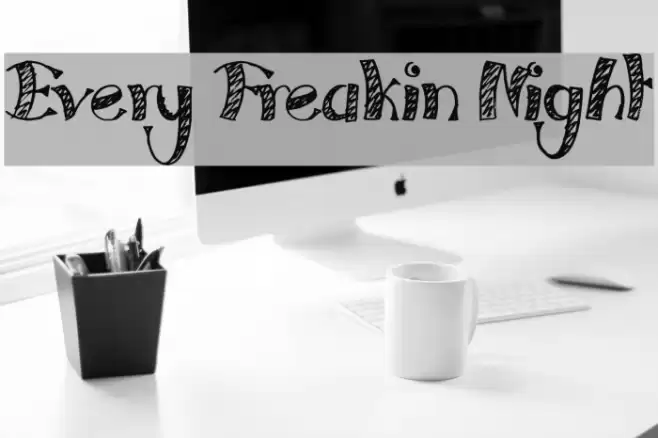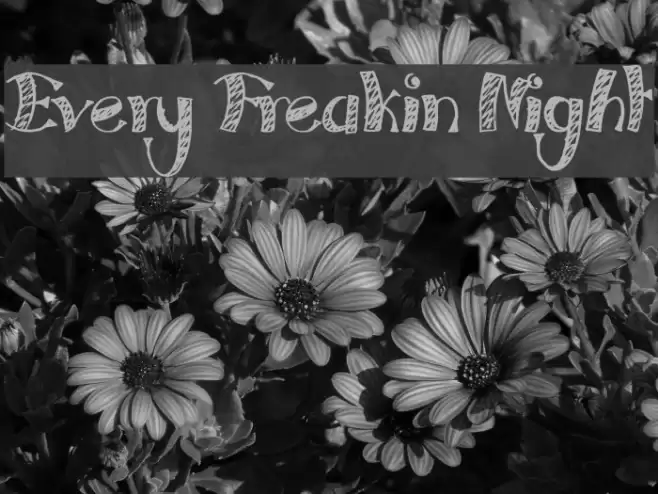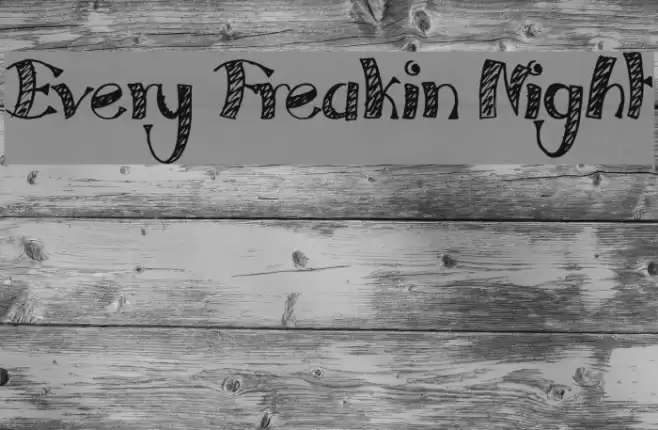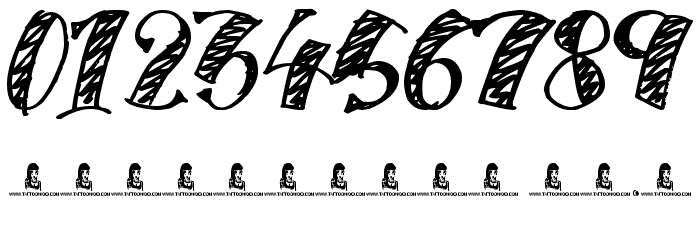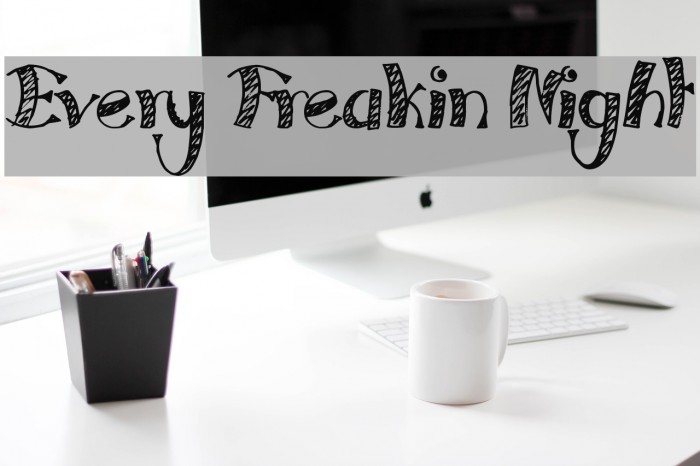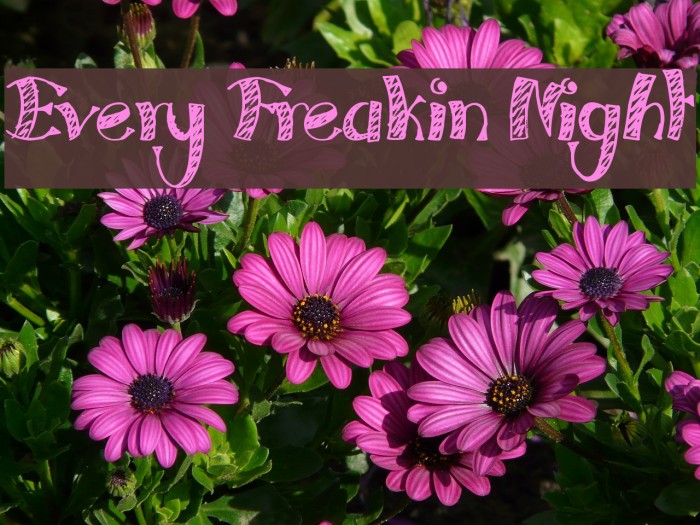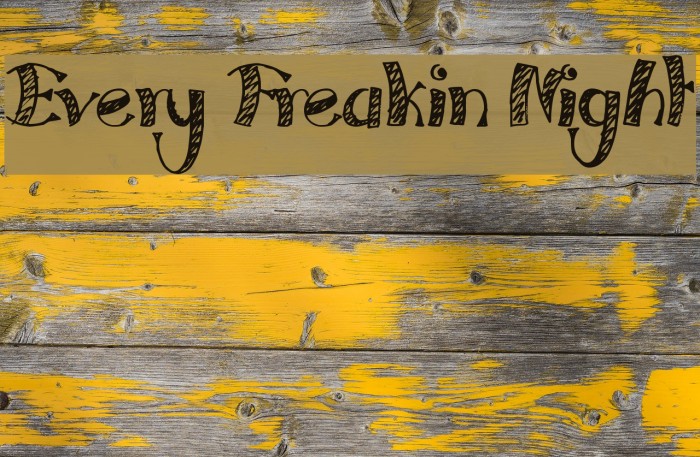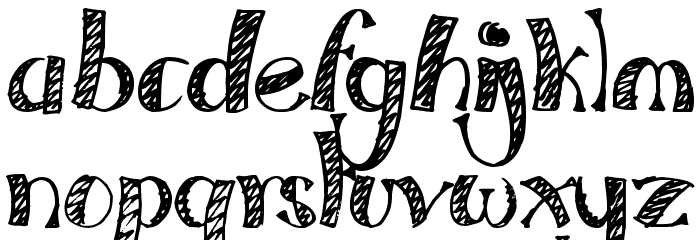
Every Freakin Night Font
Every Freakin Night Description
This font features a bold, hand-drawn style with a playful and energetic vibe. The characters are designed with a textured, sketch-like appearance that gives them a unique, artistic flair. The uppercase and lowercase letters maintain a consistent style, with exaggerated curves and varying line thicknesses that add to the font's dynamic look. Numbers and special characters follow the same design principles, ensuring a cohesive appearance across all elements. This font is perfect for projects that require a creative and informal touch, such as posters, invitations, and social media graphics.
A bold, hand-drawn font with a playful, sketch-like appearance from Uncategorized fonts.
- Proposed Projects: Ideal for creative projects like posters, invitations, and social media graphics.